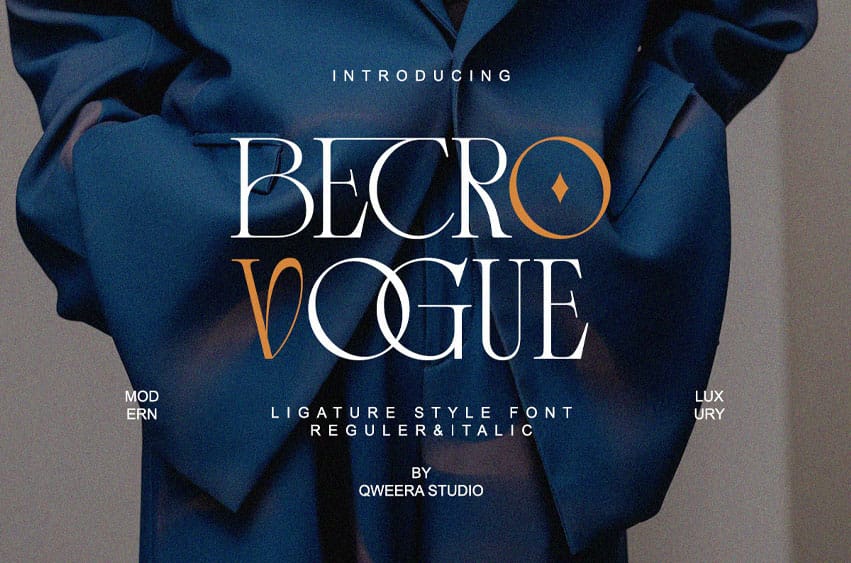
Betro Vogue Font is a breathtaking contemporary serif that redefines luxury typography with its sophisticated design. Featuring both Regular and Italic styles with exquisite alternates and ligatures, this font is expertly crafted for elite branding, high-end logos, luxury packaging, and editorial designs that demand prestige and visual impact.
Where Modern Elegance Meets Timeless Sophistication
With its razor-sharp serifs and graceful italic variant, Betro Vogue delivers unparalleled versatility for luxury brands. The meticulously designed alternates and ligatures enable flawless typographic compositions that exude exclusivity and refinement.
Premium Features Include:
- Luxury Serif Design – Exquisite letterforms with couture details
- Dual Style Versions – Regular & italic for dynamic applications
- Stylish Alternates – 25+ premium character variations
- Sophisticated Ligatures – Seamless letter connections
- Universal Compatibility – From perfume packaging to luxury billboards
- Extended Latin Support – Comprehensive character set
Elevate Your Brand with Betro Vogue’s Signature Elegance. Ideal for:
- Haute couture brandin
- Luxury jewelry packaging
- Premium cosmetic lines
- High-end magazine layouts
- Exclusive event collateral